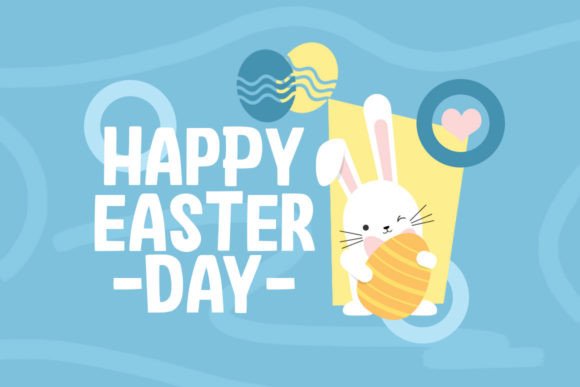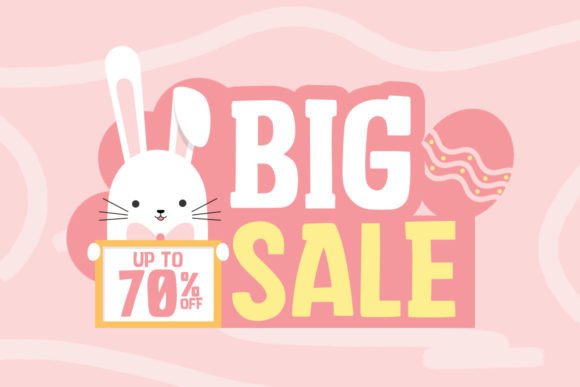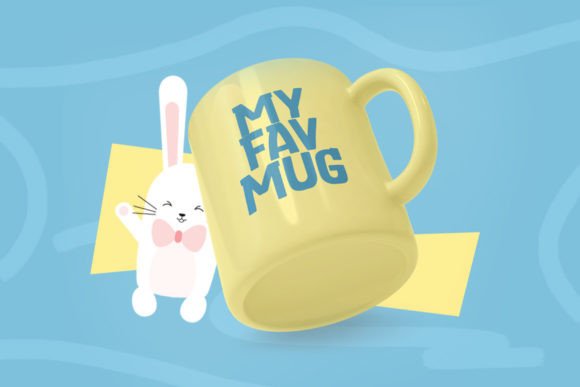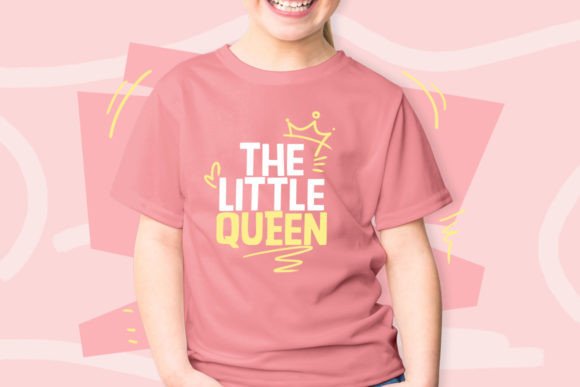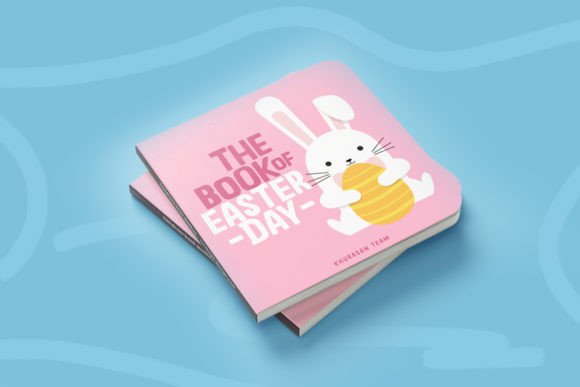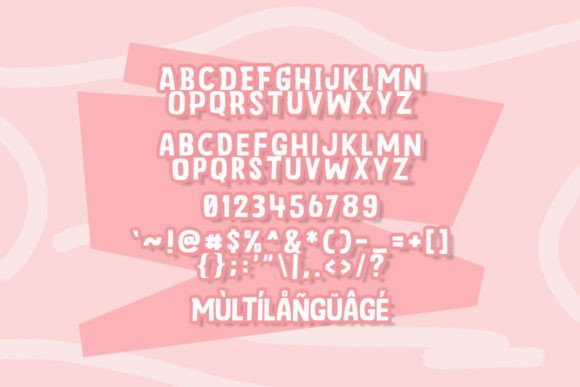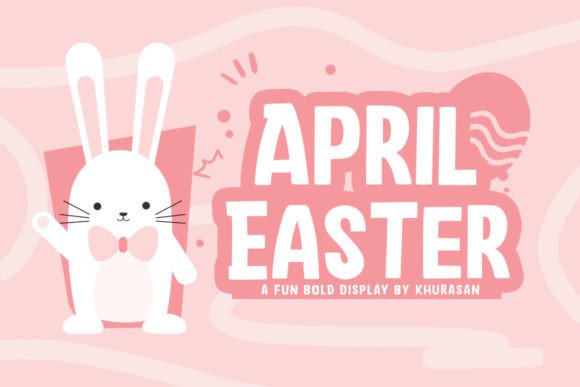
Introducing April Easter Font: Elevate Your Designs with a Modern and Fancy Display Font
Are you a designer or crafter looking for a unique and eye-catching font to elevate your creative projects? Look no further than the April Easter Font! This modern and fancy display font is perfect for a wide range of applications, from posters and logos to magazines, book covers, banners, and more. With its quirky and charming style, April Easter Font is sure to add a touch of personality to your designs.
What Makes April Easter Font So Special?
April Easter Font is a one-of-a-kind display font that boasts a distinctive and stylish aesthetic. Its modern and fancy design makes it perfect for designers and crafters who want to create visually striking and attention-grabbing designs. Whether you’re working on a poster, logo, or magazine cover, this font is sure to make your project stand out from the crowd.
Endless Design Possibilities with April Easter Font
The versatility of April Easter Font is one of its most appealing features. This font can be used for a wide range of design projects, including:
- Posters: Create eye-catching posters for events, promotions, or advertising campaigns.
- Logos: Design unique and memorable logos for businesses, brands, or products.
- Magazines: Add a touch of elegance and sophistication to your magazine covers or layouts.
- Book Covers: Create captivating book covers that will grab the attention of readers.
- Banners: Design stunning banners for websites, social media, or advertising campaigns.
Why Choose April Easter Font?
There are many reasons why designers and crafters will love April Easter Font. Here are just a few:
- Unique and Quirky Style: April Easter Font boasts a distinctive and charming style that will add personality to your designs.
- Modern and Fancy Design: This font features a modern and fancy design that’s perfect for creating visually striking designs.
- High-Quality Design: This font is designed with high-quality and precision, ensuring that your designs will look professional and polished.
Tips for Using April Easter Font
To get the most out of April Easter Font, here are a few tips to keep in mind:
- Experiment with Different Sizes: April Easter Font looks great in a variety of sizes, so don’t be afraid to experiment and find the perfect size for your design.
- Pair with Other Fonts: Try pairing April Easter Font with other fonts to create a unique and visually appealing design.
- Use for Headlines and Titles: This font is perfect for headlines and titles, so use it to add a touch of elegance and sophistication to your designs.